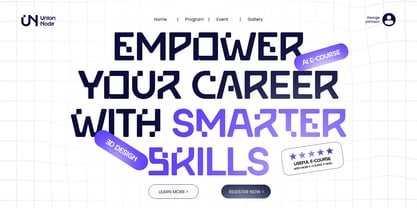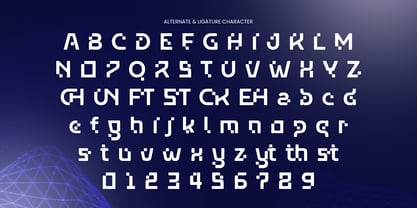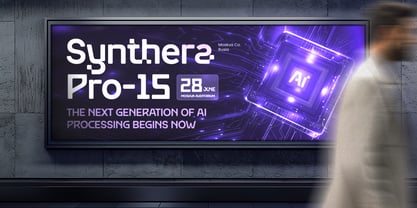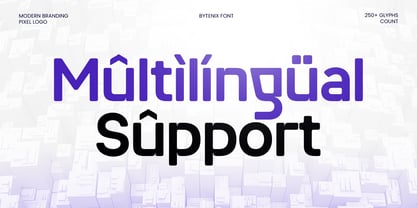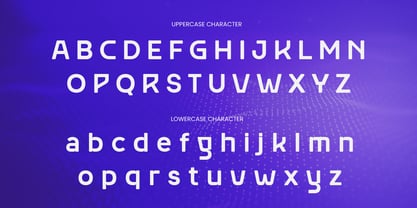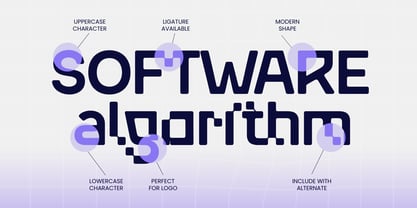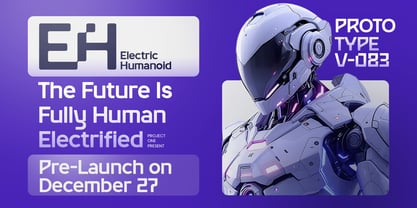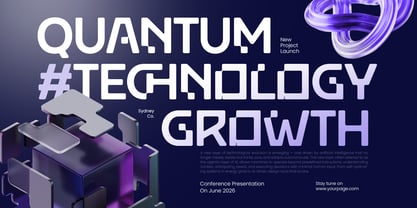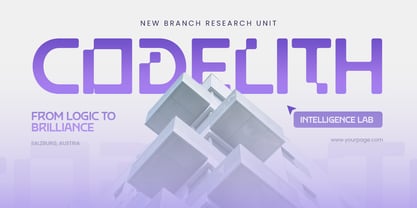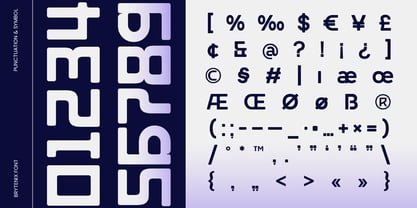
Bytenix
by Sensatype Studio
The Bytenix Font Family was designed by Zamroni Hamzah and published by Sensatype Studio. Bytenix contains 1 styles. More about this family
Bytenix is a modern pixel-based font built for the future of branding. Perfect for tech startups, digital products, gaming, and innovative brands, Bytenix captures the essence of sleek, minimalist design. With its sharp, pixel-inspired letterforms, it brings a unique, futuristic edge to logos, digital branding, and other creative projects.
Inspired by the precision of pixel art and the clean simplicity of modern design, Bytenix is crafted to make a statement. Its compact and bold letterforms ensure legibility while retaining a high-tech, digital aesthetic. Whether you're designing a modern app logo, a video game interface, or a futuristic brand identity, Bytenix delivers a distinct visual style that stands out in any digital space.
Bytenix – Modern Branding Pixel Logo Font Features:
• Clean, pixel-inspired letterforms with a modern twist
• Perfect for logos, digital branding, and minimalist design
• Uppercase and lowercase letters for versatility
• OpenType features for enhanced typographic flexibility
• Multilingual support for diverse global branding
Designers: Zamroni Hamzah
Foundry: Sensatype Studio